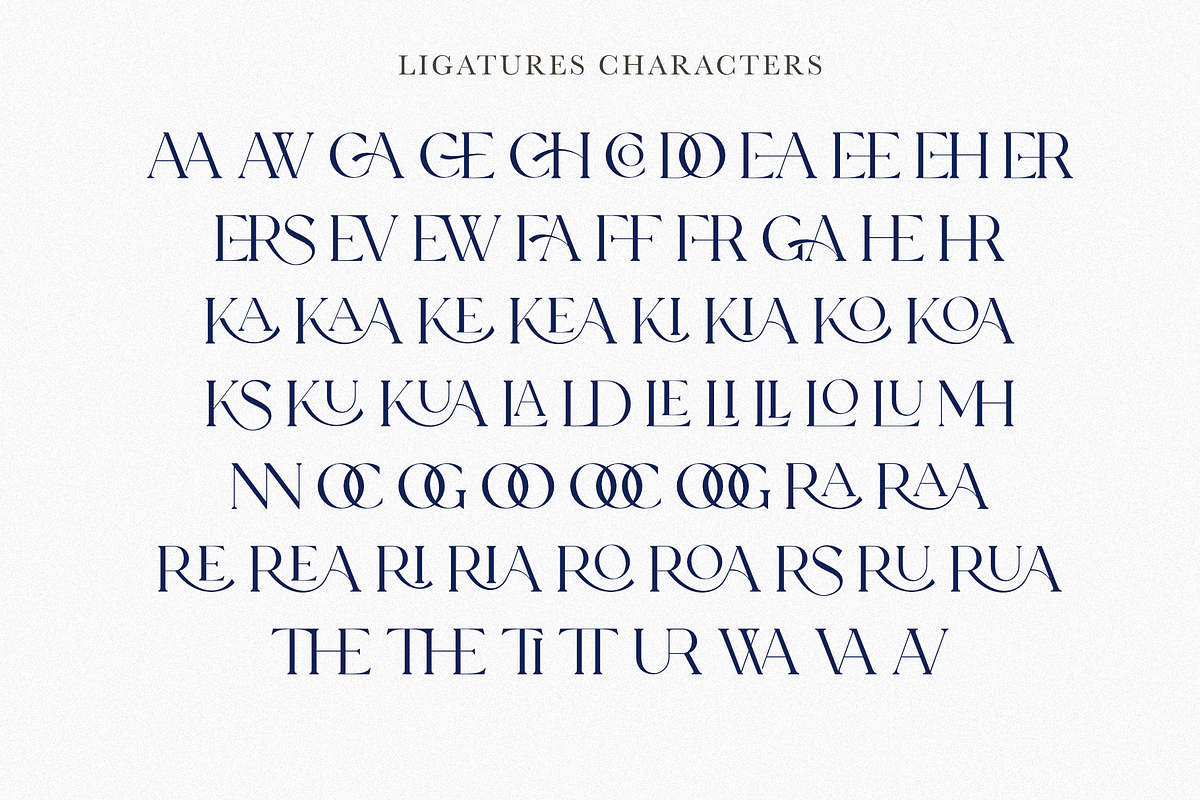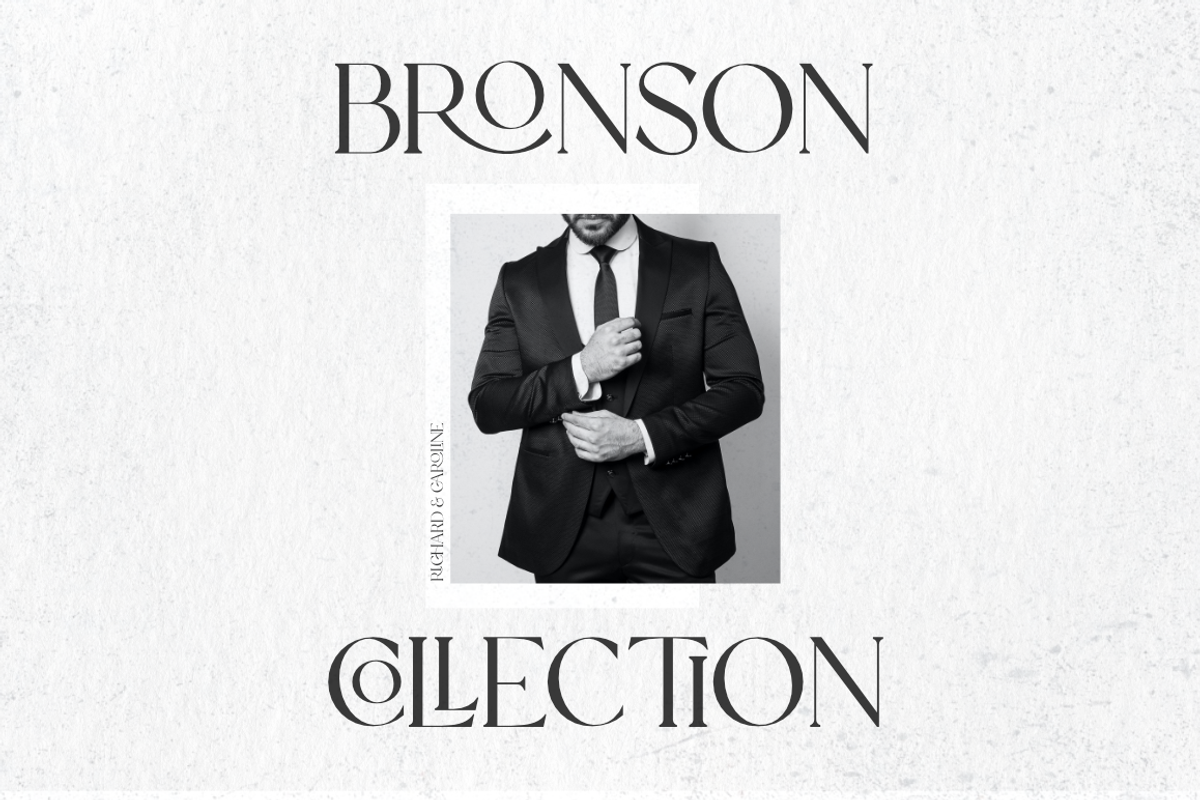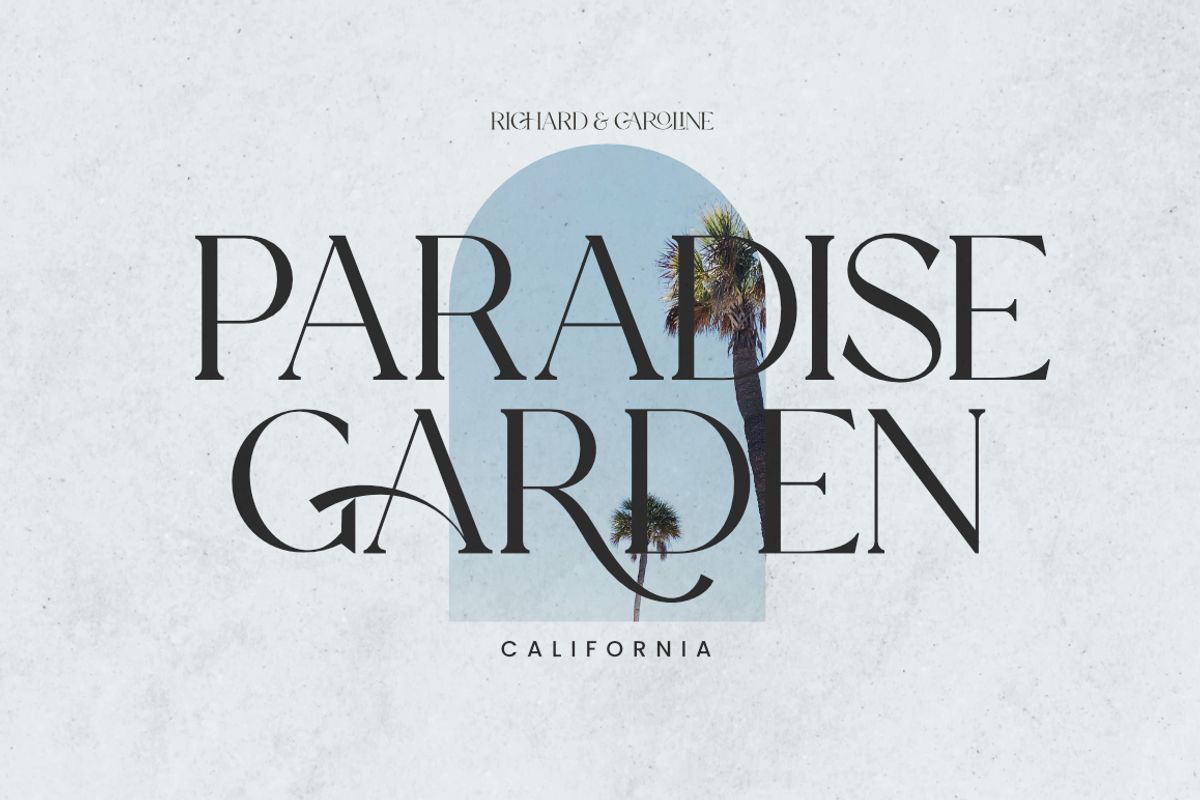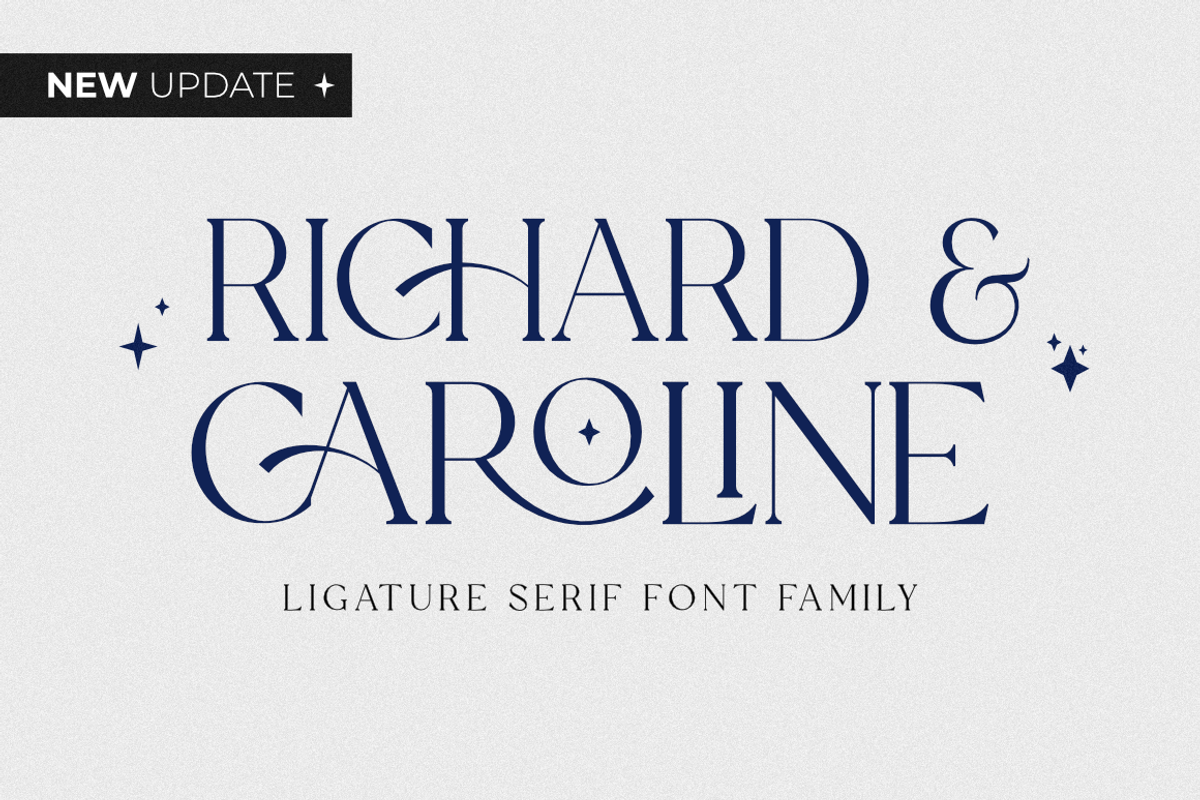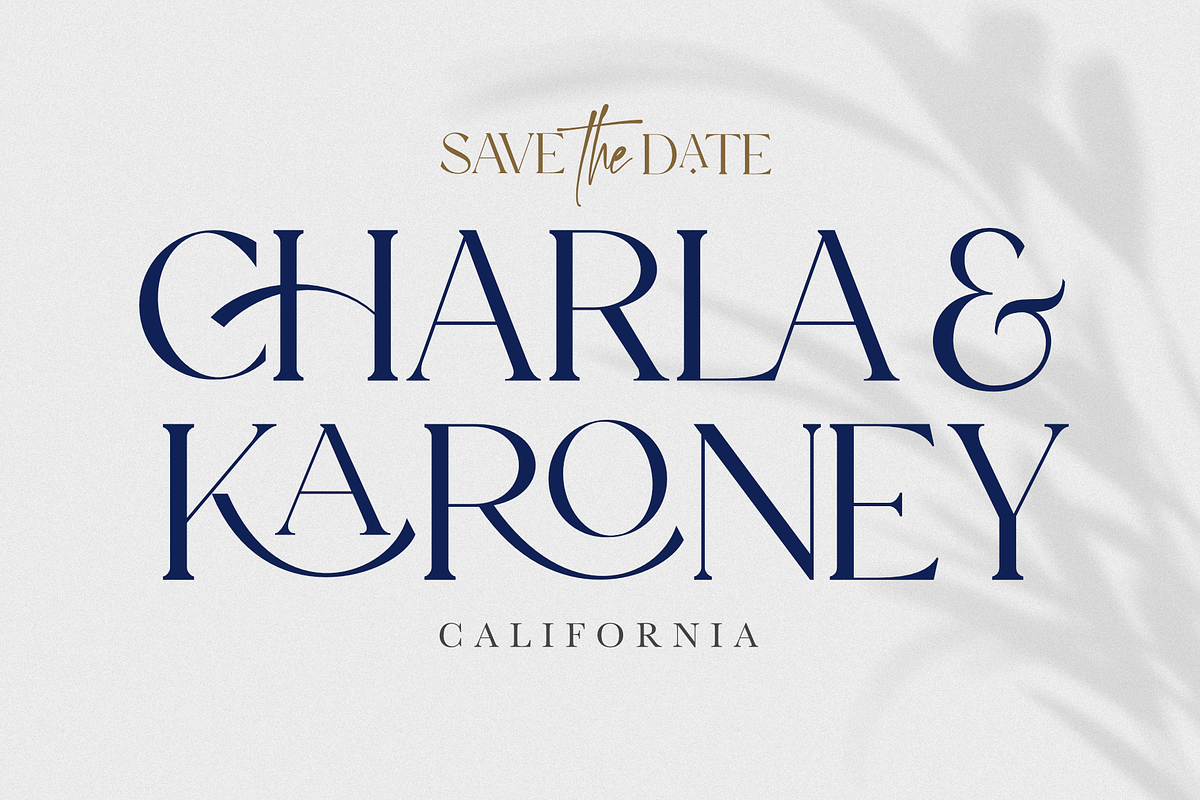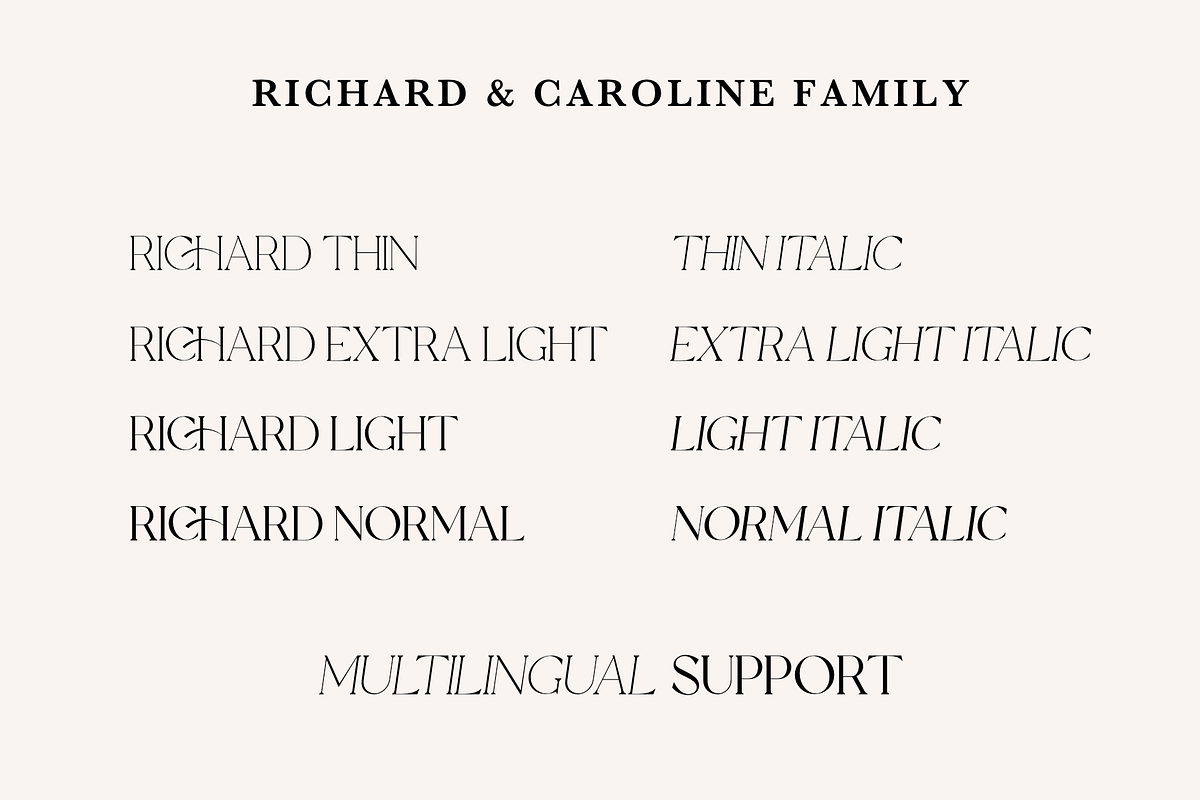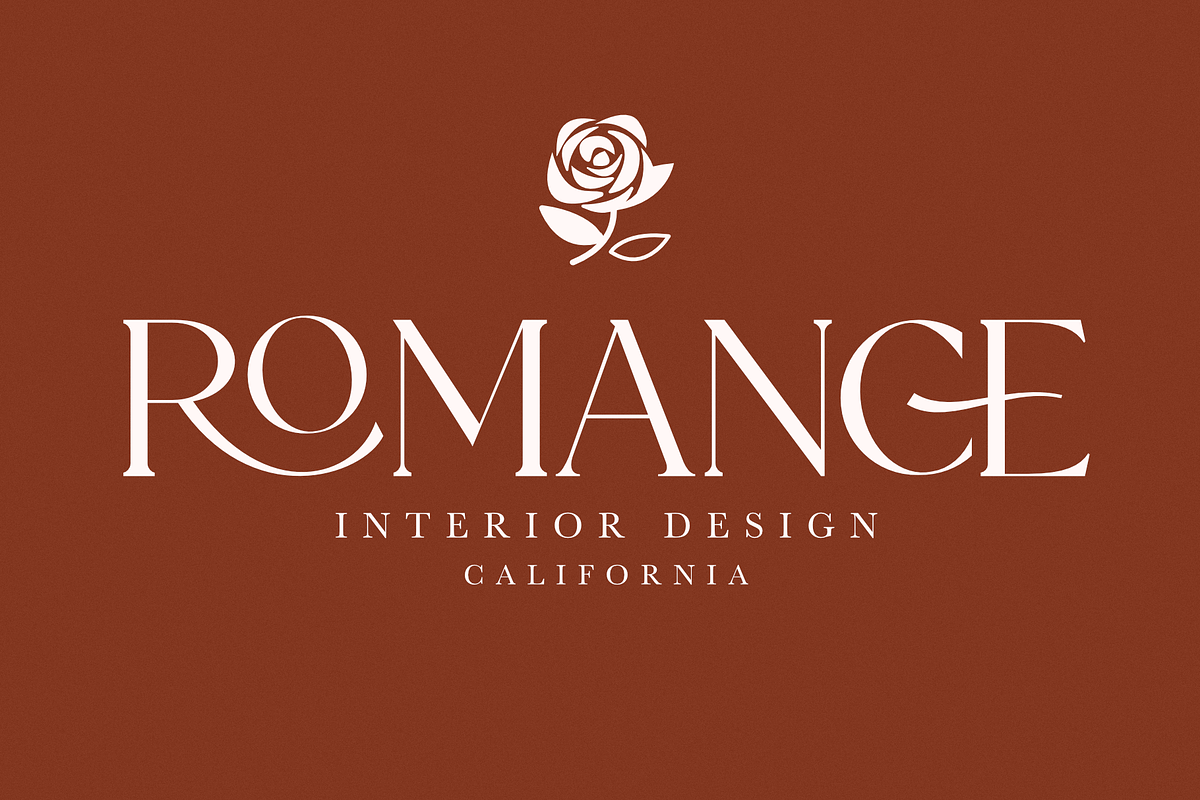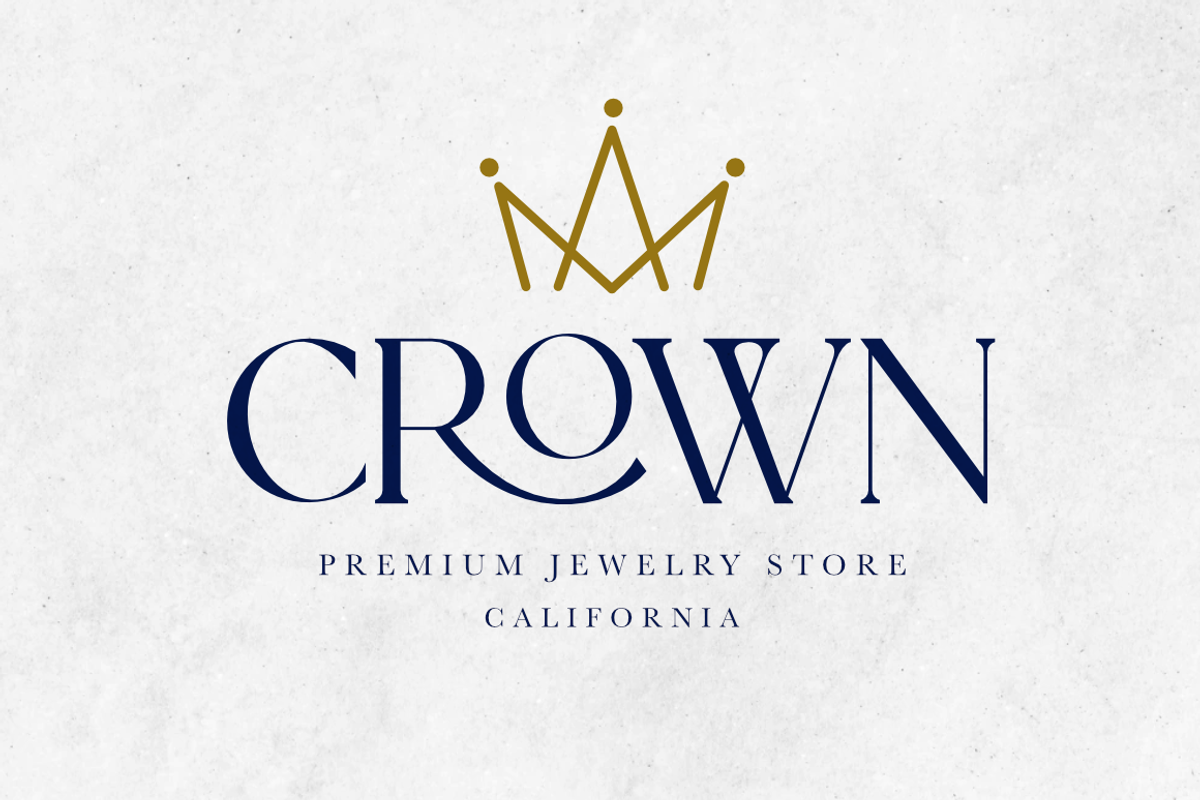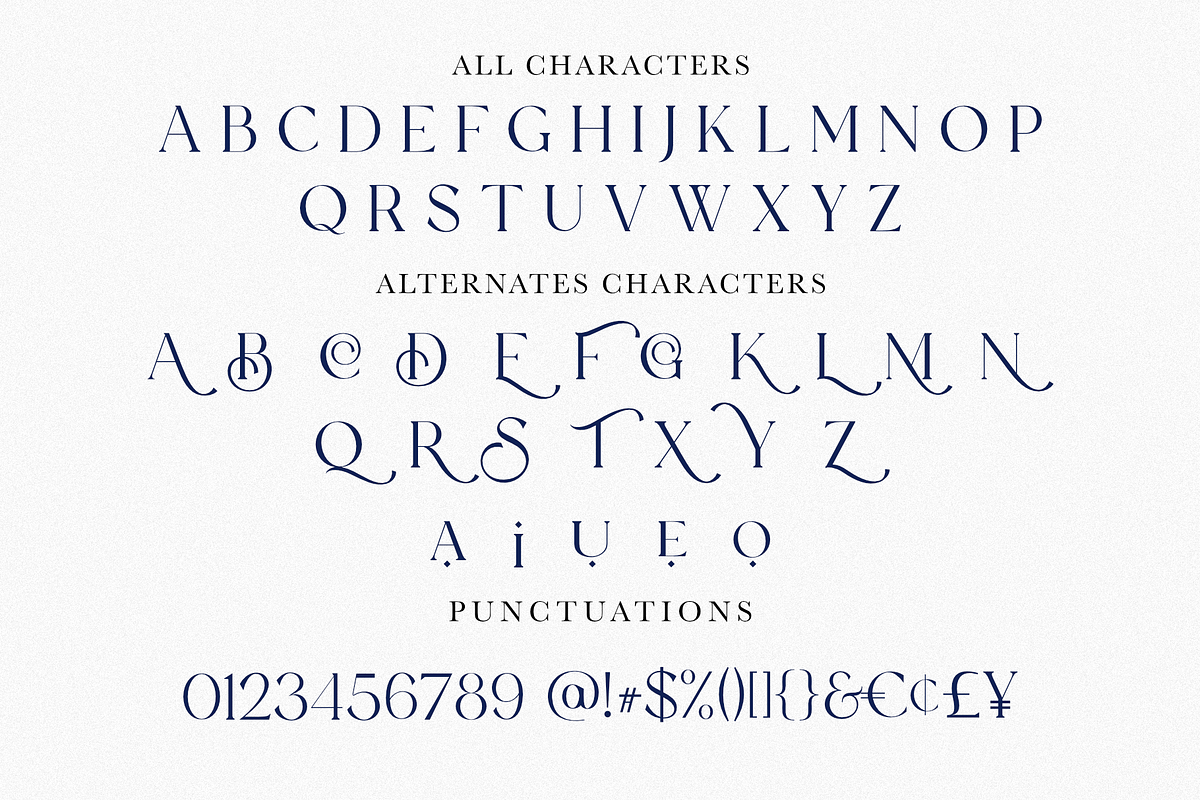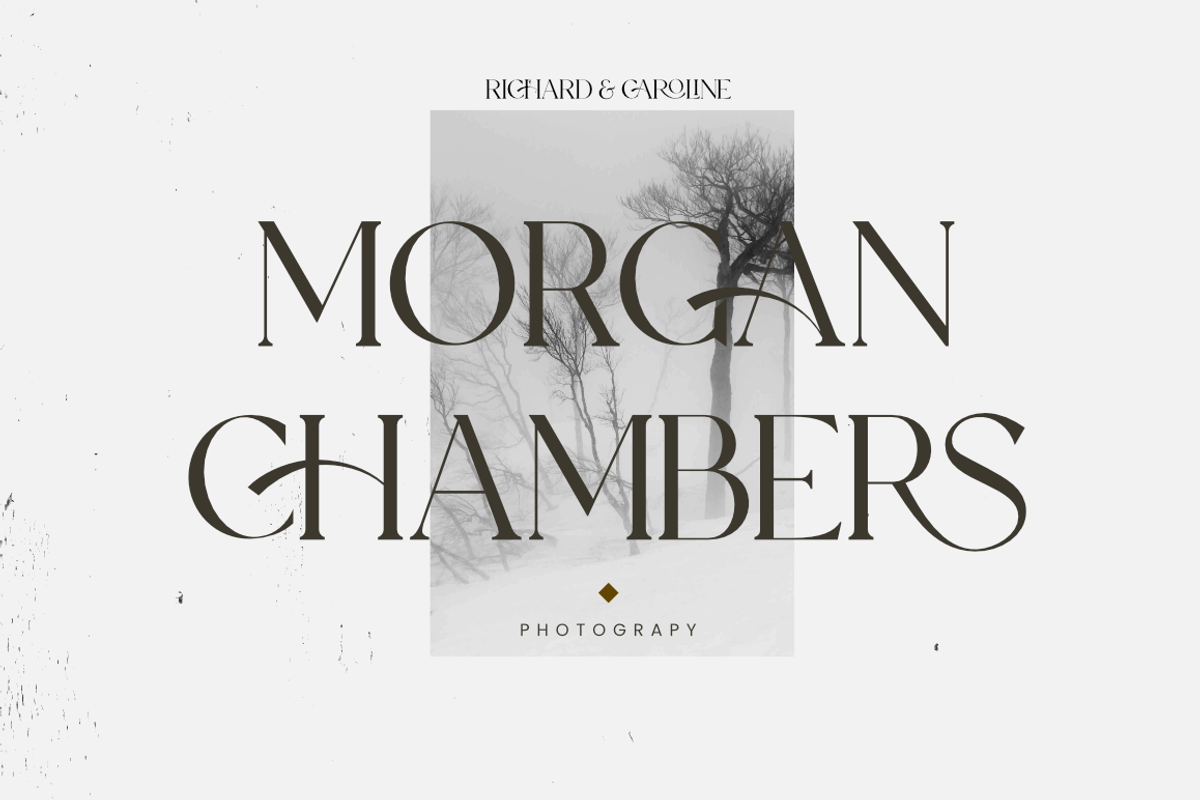
Richard & Caroline Family *Update*
Richard & Caroline is a classic font with a modern style, so it adds a luxurious feel to this font, there are many ligatures and alternates that you can use for your design, and this will make your design more stunning and stand out.
This serif font contains a number of ‘lowercase’ (A, E, U, I, O) and Uppercase Alternates characters. this can be accessed by enabling ‘stylistic Alternates’ in any software that supports OpenType.
- Added Many Ligatures
- Added lots of Uppercase Alternates
- Support 75 Languages